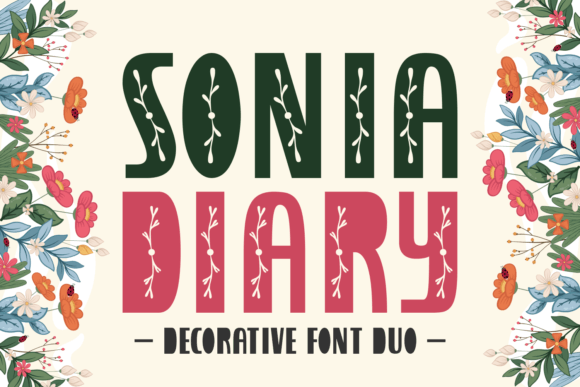
Introducing Sonia Diary Font, a stunning decorative and display font duo crafted by the imaginative minds at Jasm (7NTypes)! This exquisite font family is the ultimate choice for those seeking to express their creativity with flair and distinction. The bold display characters stand tall, exuding confidence and strength, while the delicate leafy accents dance around them, adding a touch of whimsical charm.
Imagine the captivating interiors of your beloved books adorned with the elegance of Sonia Diary Font. Its intricate curves and enchanting flourishes will transport your readers to realms of wonder, enhancing their experience with every turn of the page. The possibilities are endless as you weave your tales with this enchanting font duo.
Whether you choose to use these fonts harmoniously together or let them shine individually, the impact will be undeniable. Sonia Diary Font empowers you to create designs that captivate audiences, leaving a lasting impression that lingers long after the final word. Unleash your creativity and embark on a typographic journey that will elevate your projects to new heights.